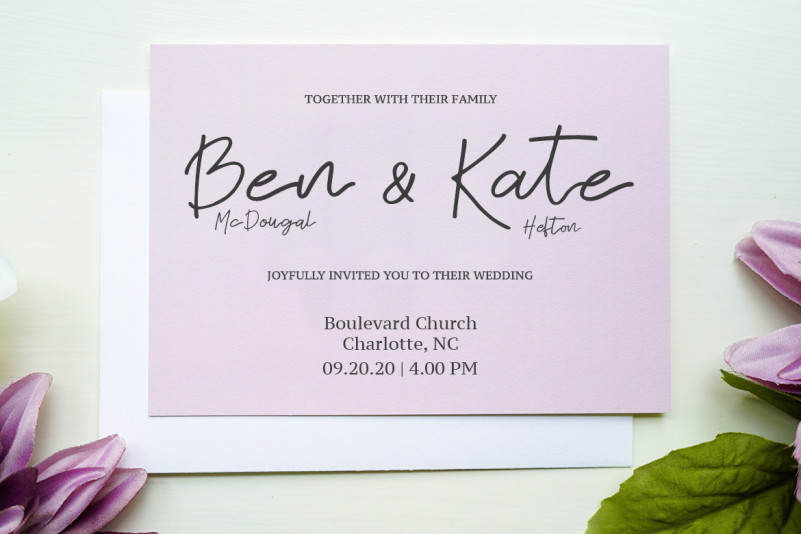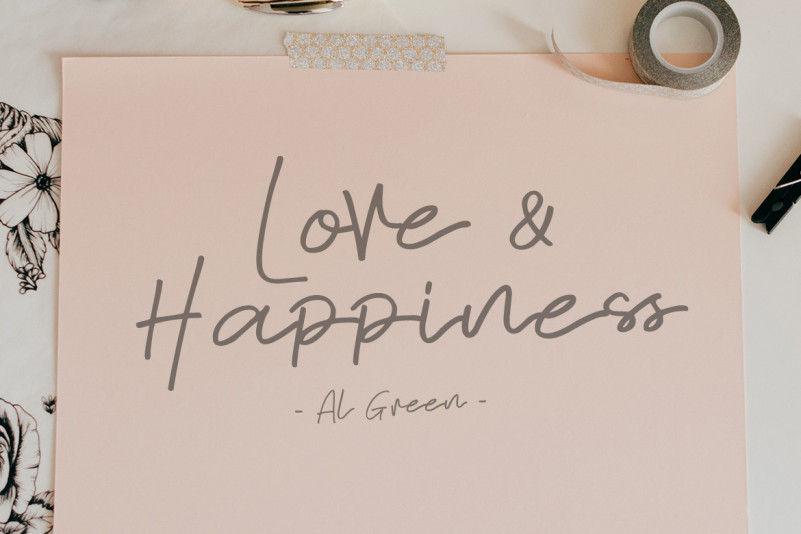
Esmargo Font
Esmargo Brush Font is a sweet and brushed handwritten font. Dainty and joyful, this font will be ideal for writing wedding invitations, cards or any other design that may need a romantic, personalized touch!